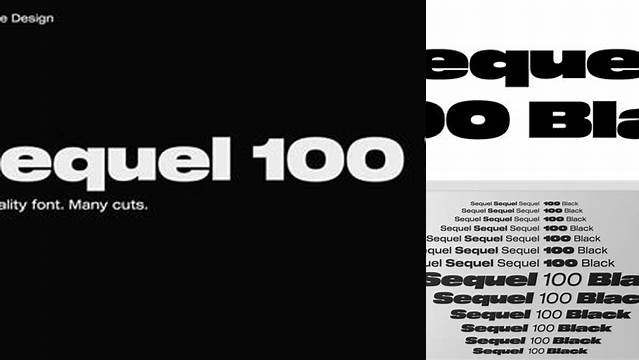
Hey guys! Are you looking to elevate your design game with a sleek and modern font? Well, you've landed in the right place! Today, we're diving deep into the world of the Sequel 100 font, a typeface that's been making waves in the design community. This font is known for its clean lines, contemporary feel, and versatility, making it a favorite for everything from branding to web design. But where can you find a free download of this awesome font? Let's explore that and so much more!
1. What is Sequel 100 Font?
Let's start with the basics. What exactly is the Sequel 100 font? This typeface is a modern sans-serif font that exudes sophistication and clarity. Its clean, geometric shapes make it highly readable and visually appealing. Designers love it for its versatility; it works equally well in headlines, body text, logos, and even digital interfaces. If you're aiming for a minimalist, contemporary look, Sequel 100 is definitely a font to consider. Its unique character set includes a variety of weights and styles, providing designers with ample flexibility to create compelling designs. This font has been utilized extensively in various industries, such as technology, fashion, and finance, owing to its sleek and professional aesthetic. The appeal of Sequel 100 extends to both digital and print media, ensuring consistency across different platforms. Understanding the origins and design principles behind this font will help you appreciate its elegance and effectiveness in communication. So, whether you're a seasoned designer or just starting out, getting acquainted with Sequel 100 is a step in the right direction. Let’s move on to where you can snag this gem for your next project.
2. Key Features of Sequel 100 Font
So, what makes Sequel 100 font stand out from the crowd? It's not just another pretty typeface, guys. It boasts some key features that make it a top choice for designers. First off, its clean and geometric design ensures readability across various sizes and media. Whether you're using it for a large headline or small body text, Sequel 100 maintains its clarity. Another standout feature is its versatility. This font family often includes multiple weights (light, regular, bold, etc.) and styles (italic, condensed), allowing for a wide range of design applications. You can use it to create a strong, impactful headline or a subtle, elegant paragraph.
Moreover, Sequel 100 often supports a wide range of characters, including ligatures and alternates, adding a touch of uniqueness to your typography. This ensures that your designs don’t look generic and have a distinct personality. The font's contemporary feel makes it perfect for modern branding, web design, and print materials. It seamlessly fits into a variety of design aesthetics, from minimalist to corporate. Its global appeal is also a significant feature, with extensive language support allowing it to be used in projects targeting international audiences. These key features combined make Sequel 100 a reliable and stylish choice for any designer looking to make a statement.